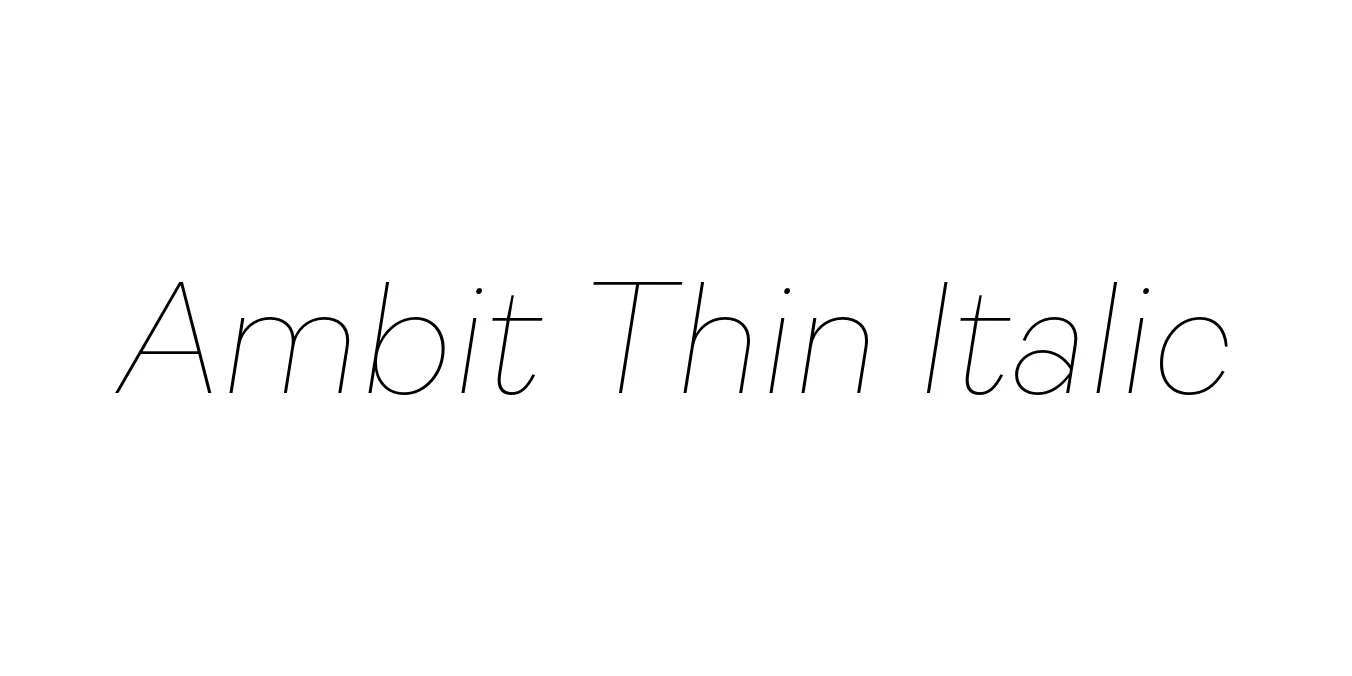
Ambit Thin Italic
Designed by Cobi Levy
| Similar Fonts | Montserrat, Futura, Aperçu, Gotham |
Ambit Thin Italic is a contemporary sans-serif typeface designed by Cobi Levy and released through the CoType Foundry. It is characterized by its quirky and eccentric proportions, which differentiate it from standard geometric fonts. The typeface is a unique blend of classic modernist structures and unexpected, playful curves—most notably seen in the distinct treatment of its lowercase 'f' and 'r' characters.
The Thin Italic weight provides an exceptionally delicate and elegant aesthetic, maintaining clarity despite its slender profile. Its slight slant adds a sophisticated sense of rhythm and motion, making it a versatile tool for designers looking to inject personality into minimalist designs without sacrificing professional standards. It remains a staple for modern digital and print landscapes due to its distinctive visual voice.
Ambit Thin Italic Best Uses
Sophisticated pull quotes and captions in high-fashion magazines.
Perfect for minimalist logos and high-end brand identity systems.
Ideal for elegant hero sections and uniquely styled headings.
Great for posters and artistic layouts that require a modern, sharp look.